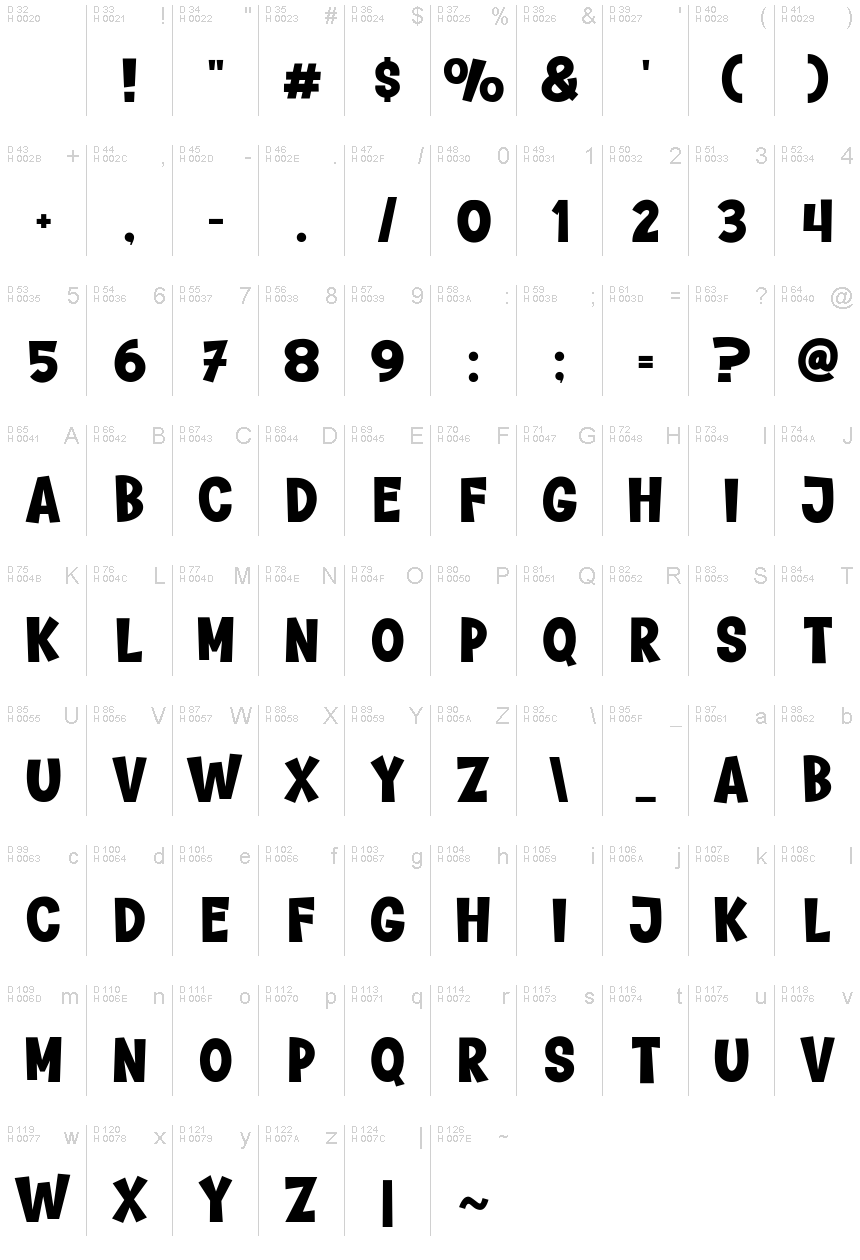
Bread Dream
Bread Dream, crafted by Khurasan, is a captivating display font that exudes a playful, cartoon-inspired aesthetic. With its bold, striking letterforms, this font commands attention and evokes a sense of whimsical charm. The dynamic lines and organic curves lend a lively, almost hand-drawn feel, infusing designs with a touch of endearing personality.
Bread Dream's versatility shines through its ability to seamlessly adapt to a wide range of design applications. Its playful nature makes it a standout choice for branding, packaging, and editorial layouts targeting a youthful, energetic audience. Equally at home in children's books, greeting cards, and digital interfaces, this font effortlessly brings a sense of fun and approachability to any project.